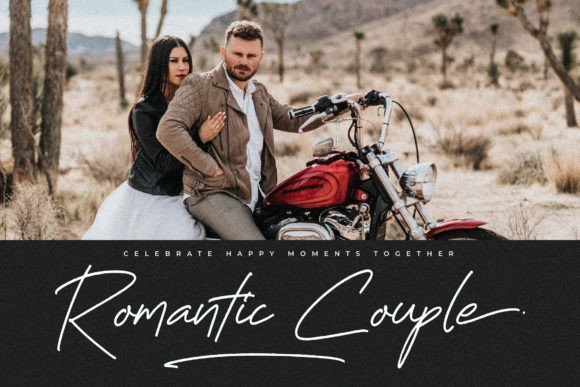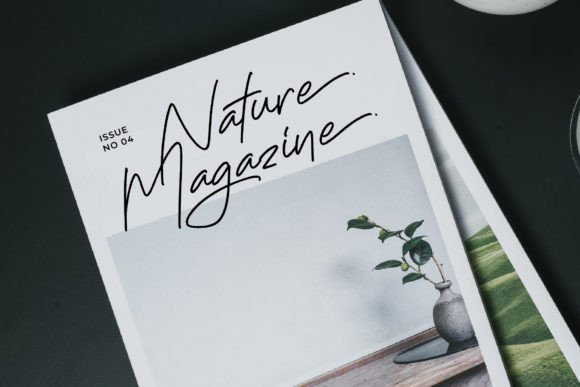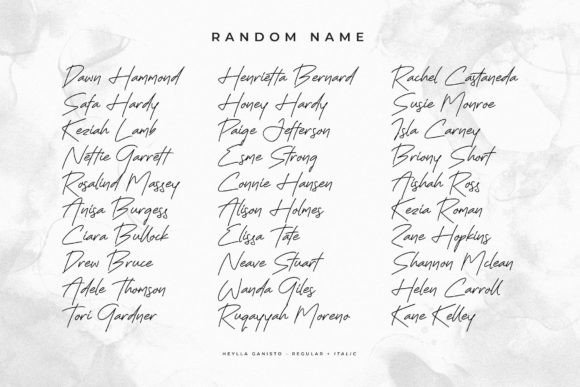
Introduction to Heylla Ganisto Font
Have you ever stared at a blank canvas, waiting for that perfect spark to ignite your creativity? For designers, this moment is all too familiar. It’s the moment when the blank page becomes a blank slate, full of endless possibilities. And for those who crave that special something, a beautifully crafted font can be the key to unlocking their creative potential.
Enter the Heylla Ganisto Font, a stunning handbrush signature font that’s perfect for a wide range of creative projects. From logos and branding projects to homeware designs and product packaging, this font is a versatile design resource that’s sure to elevate any project. With its high-quality design and transparent background, it’s the perfect addition to any designer’s toolkit.
Key Features of Heylla Ganisto Font
- Unique, hand-drawn design with a transparent background, making it ideal for creative projects.
- High-quality font with crisp details, suitable for use in various design applications, including print and digital media.
- Perfect for creative projects, such as graphic design, digital art, and typography-based art, where a unique and eye-catching font is required.
Honest Review: Heylla Ganisto Font
I recently came across the Heylla Ganisto Font while searching for a free design resource to add some flair to a creative project. The first thing that caught my attention was its unique, playful style, which I thought would be perfect for a children’s book design.
Here are some things that work well about this font:
- ✨ High quality: The font is crisp and clear, making it ideal for both digital and print projects.
- ✨ Versatile: It can be used for a wide range of creative projects, from children’s books to advertising materials.
- ⚠️ Limited compatibility: The font doesn’t work well on transparent backgrounds, which can be a problem for designers who need to create graphics with a transparent or semi-transparent effect.
- ⚠️ Limited customization: The font is quite stylized, which can make it difficult to customize or manipulate for specific design needs.
Overall, I think the Heylla Ganisto Font is a great addition to any designer’s toolbox, but it’s not without its limitations. If you’re looking for a fun and playful font for a creative project, this might be the perfect choice. Just be aware of its limitations and make sure it meets your specific design needs.
Tips for Getting the Most Out of Heylla Ganisto Font
Use the Heylla Ganisto Font with a transparent background to create a modern and sleek design. Experiment with different font sizes and colors to add visual interest to your creative project.
The Heylla Ganisto Font is ideal for use in logos, business cards, and marketing materials. Its high quality and versatility make it a popular choice among designers.
Alternatives to Heylla Ganisto Font
Pacifico is a high-quality, elegant font that is perfect for creative projects requiring a sophisticated look. It features a beautiful, cursive design that is ideal for use on a transparent background. You can download it for free and use it as a design resource for your next project.
Compared to Heylla Ganisto Font, Pacifico is more elegant and refined, making it suitable for formal and professional designs. It lacks the playful, handwritten feel of Heylla Ganisto Font, but its sophistication makes it a great alternative for certain creative projects.
Can I use the Heylla Ganisto Font in conjunction with other design elements?
Yes, the Heylla Ganisto Font is designed to be used in combination with other design elements. Its high-quality design and transparent background make it easy to pair with other fonts, graphics, and images to create a unique and visually appealing design.